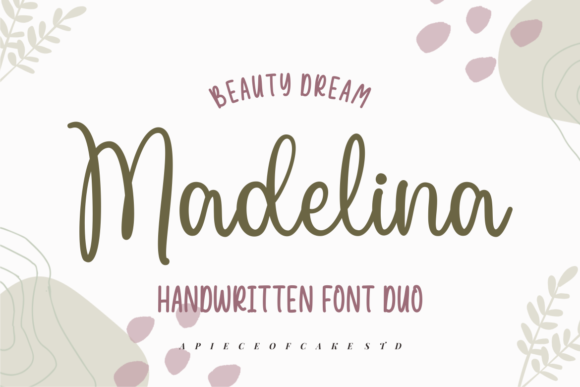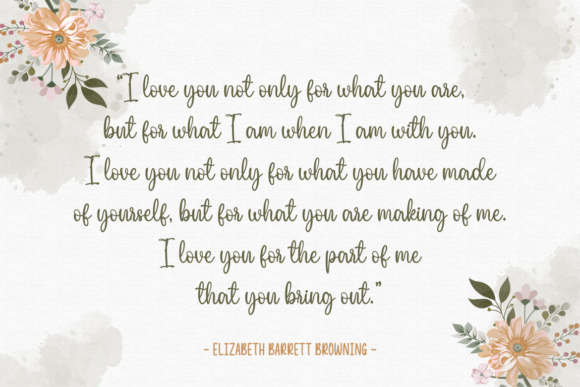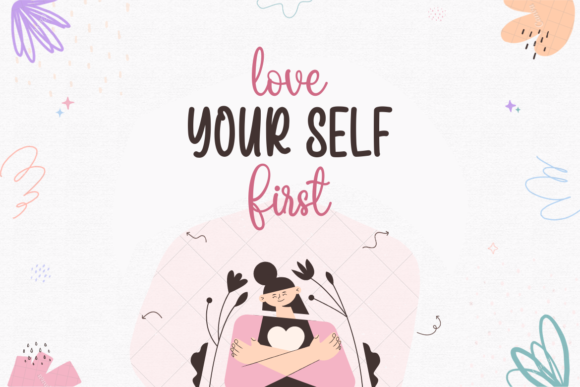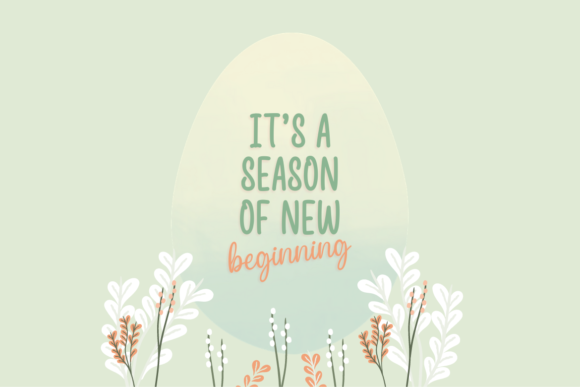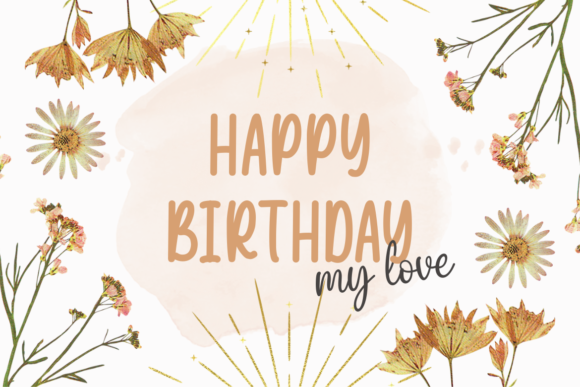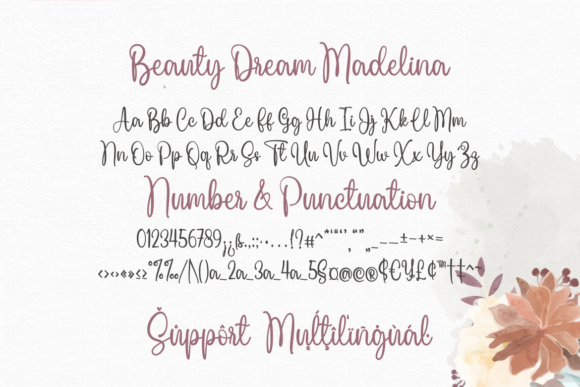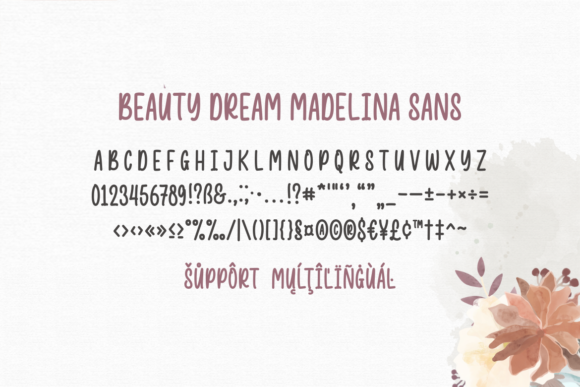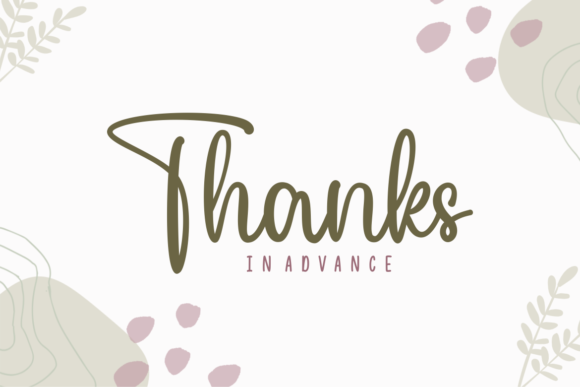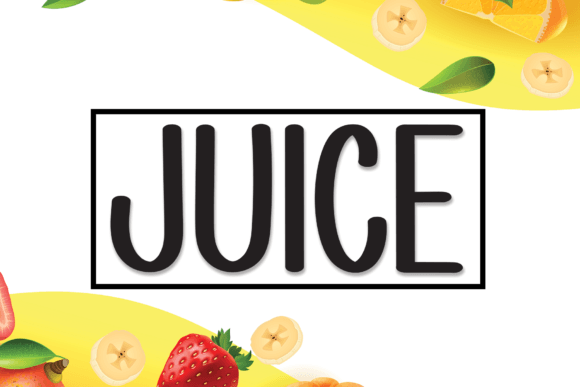
Beauty Dream Madelina Font
Beauty Dream Madelina is a delightful font duo designed to complement each other perfectly, offering a chic and cheery touch to your creative projects. Whether used together or separately, these fonts are ideal for adding a touch of charm and style to your crafts. The font duo includes a PUA encoding feature, ensuring easy access to all the glyphs and swashes for a seamless and customized design experience.
The combination of Beauty Dream and Madelina brings a dynamic and harmonious balance to your typography. The versatility of these fonts allows you to explore various design possibilities, making them suitable for a wide range of creative applications, from branding projects to crafts and beyond.
Whether you choose to use them in tandem for a cohesive look or individually for distinct purposes, the Beauty Dream Madelina font duo offers a wealth of design options. The PUA encoding feature further enhances the user-friendly experience, allowing you to access and utilize the diverse set of glyphs and swashes with ease.
In summary, Beauty Dream Madelina is more than just a font duo; it’s a stylish and complementary set that adds a chic and cheery touch to your crafts. The PUA encoding ensures accessibility to a variety of glyphs and swashes, providing designers with the freedom to create customized and visually appealing designs. With Beauty Dream Madelina, your creative projects are bound to exude charm and style.